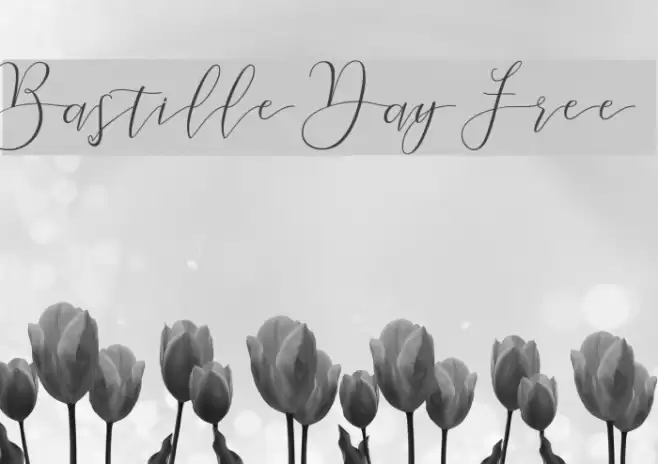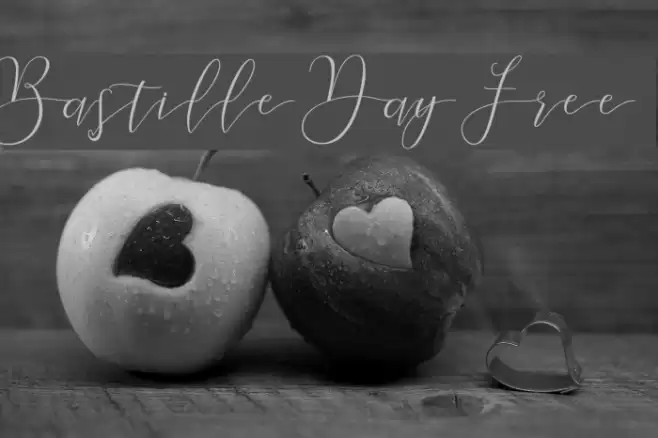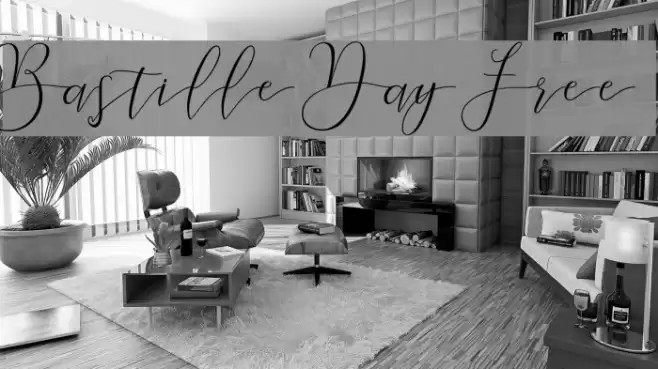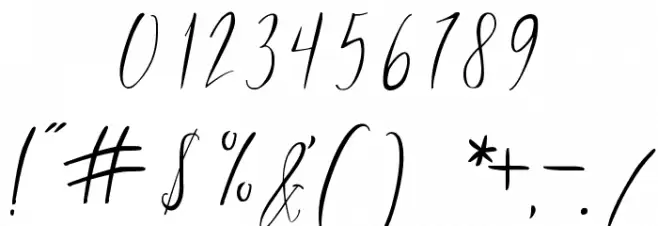
Bastille Day Free Font
Bastille Day Free Description
This elegant script font features flowing, interconnected letters with a distinct calligraphic style. The uppercase characters are ornate and elaborate, with sweeping curves and loops that give a sense of movement and grace. The lowercase letters maintain a consistent style, offering a harmonious blend with the uppercase. Numbers and special characters are designed with the same attention to detail, ensuring a cohesive look across all elements. The strokes are thin and delicate, contributing to a sophisticated and refined appearance, ideal for formal invitations and elegant branding.
An elegant script font with flowing, interconnected letters and a calligraphic style from Uncategorized fonts.
- Proposed Projects: Ideal for wedding invitations, elegant branding, greeting cards, and luxury packaging.
- Weight: Light
- Character Spacing: Tight
- Overall Style: Elegant
- Use Case: Invitations, Branding, Greeting Cards